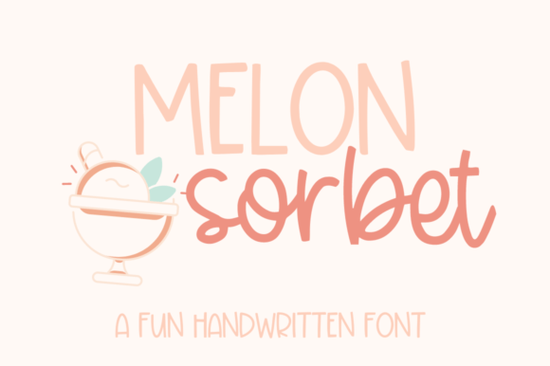
If you are searching for a playful yet readable typeface to add personality to your projects, the Melon Sorbet Font delivers exactly that. Designed with a casual handwritten style, this script feels approachable without sacrificing legibility. Whether you are printing custom apparel, creating digital planners, or preparing files for online marketplaces, having a reliable handwritten type in your toolkit saves time.
It features balanced stroke weight and generous spacing. Unlike overly ornate calligraphy that becomes difficult to read at small sizes, this type maintains clarity even when scaled down for embroidery or printed on merchandise tags. Crafters appreciate how the gentle curves soften rigid layouts, while small business owners rely on it for brand identities that want to feel friendly.
When applying it to physical products, the font handles both single-color cuts and layered color fills well. You will find it works smoothly in cutting machine software and vector programs alike. Sticker makers often use it for planner covers, water bottle labels, and thank-you cards because the rounded edges mimic hand-drawn markers. Social media creators also lean toward it for quote graphics, event flyers, and digital wallpapers where a warm aesthetic stands out.
Which Projects Suit This Handwritten Type?
The appeal lies in its adaptable structure. Hobbyists regularly apply it to scrapbooking pages, wedding invitations, and classroom decor because the soft curves match well with floral illustrations and pastel palettes. Print-on-demand sellers use it for tote bags, mugs, and notebook covers where a casual tone appeals to everyday buyers.
How Do You Pair It With Complementary Styles?
Combining this script with cleaner alternatives usually yields better results. You might set the main title alongside a simple sans serif body text to ensure readability for longer descriptions. If you prefer staying within the script family, exploring options like Bluebird Melody Font can give you another rounded option that shares a similar vibe but offers different character weights. Alternatively, checking out Pinsetter Line Single Line Font provides a thinner alternative that sits nicely above or below bolder lettering without competing for attention.
For mixed-media projects, you can layer the handwritten style over solid backgrounds or subtle textures. When placing multiple lines of text, try alternating between this script and a structured serif or a light geometric sans serif. Honeymoon Vacation Font works surprisingly well alongside it if you need a slightly more relaxed companion for headers. If you occasionally need a rustic contrast, browsing through Hickery Font Script can help you frame the softer script without making the overall piece look chaotic.
Reviewing kerning pairs and adjusting awkward gaps manually improves the final appearance significantly. Once your layout passes these checks, you are ready to export high-resolution images or vector formats depending on your workflow. Take a moment to test your exported file on an actual product mockup before launching your shop listing. This quick preview catches scale issues and ensures your handwritten text looks sharp across different materials.